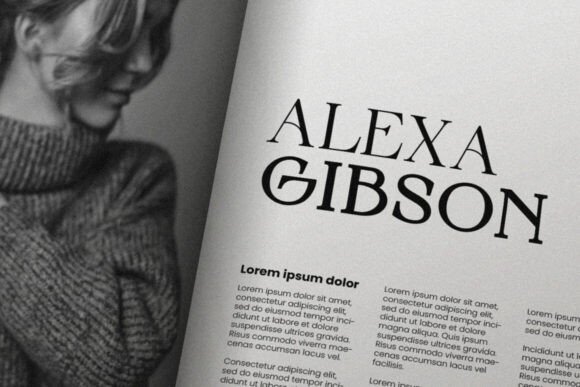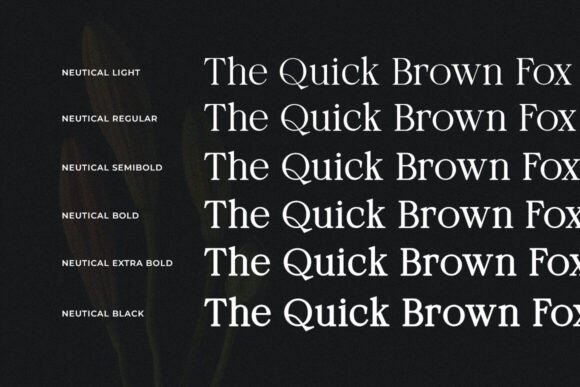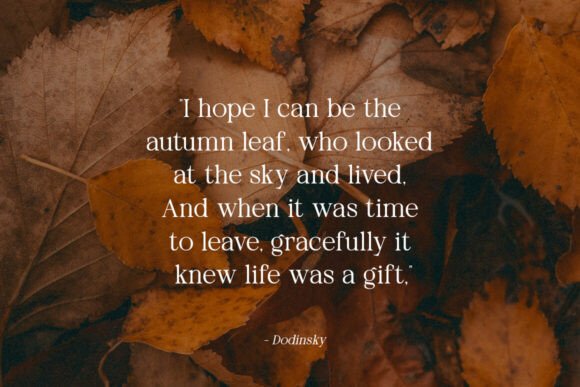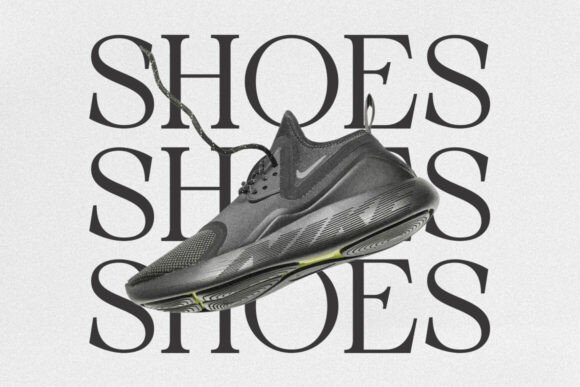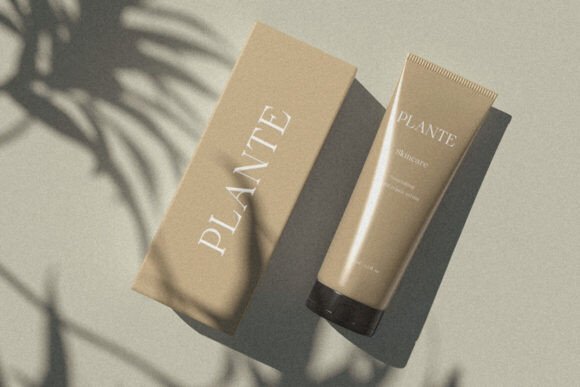
Neutical Font
Neutical is a modern serif font that blends elegance with contemporary design. Its captivating style makes it an excellent choice for crafting stunning logos, engaging headlines, and sophisticated branding materials. Whether you’re designing wedding invitations or creating beautiful stationery, Neutical’s refined aesthetic will enhance your projects, adding a touch of elegance and modern flair.